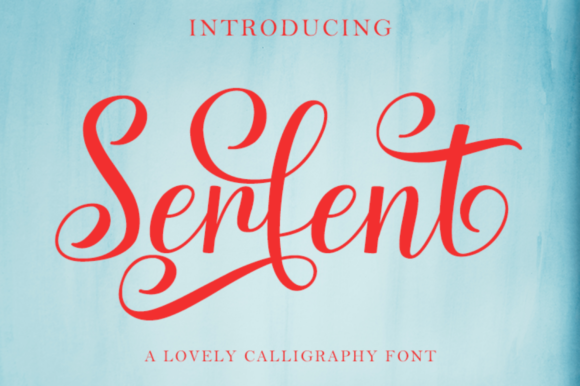
Embark on a typographic journey with the enchanting Serfent font, a script masterpiece crafted by the skilled hands at YonTypeStudio.Co. Dive into a world of elegance, warmth, and timeless beauty as you explore the endless possibilities of this captivating handwritten font.
Serfent isn't just a font; it's an artistic expression that will transform your creative visions into tangible works of art. With its sweet, all-round, and flexible nature, Serfent adapts seamlessly to a myriad of projects, adding a touch of charm and sophistication to each one.
Picture this: the gentle curves of Serfent dancing across your boat lettering, creating a visual symphony that captures the essence of the open sea. Its romantic and jolly vibes evoke a sense of nostalgia and adventure, inviting viewers to set sail on an unforgettable voyage.
Serfent is more than just a font for boat lettering; it's a versatile treasure that elevates any design project. Whether you're crafting heartfelt wedding invitations, designing eye-catching posters, or adding a personal touch to your social media graphics, Serfent weaves its magic, leaving an indelible mark on your creations.
Unleash your creativity and explore the boundless variations of Serfent. Experiment with different sizes, colors, and combinations to discover a universe of typographic possibilities. Let Serfent guide you on a journey of self-expression and artistic fulfillment.